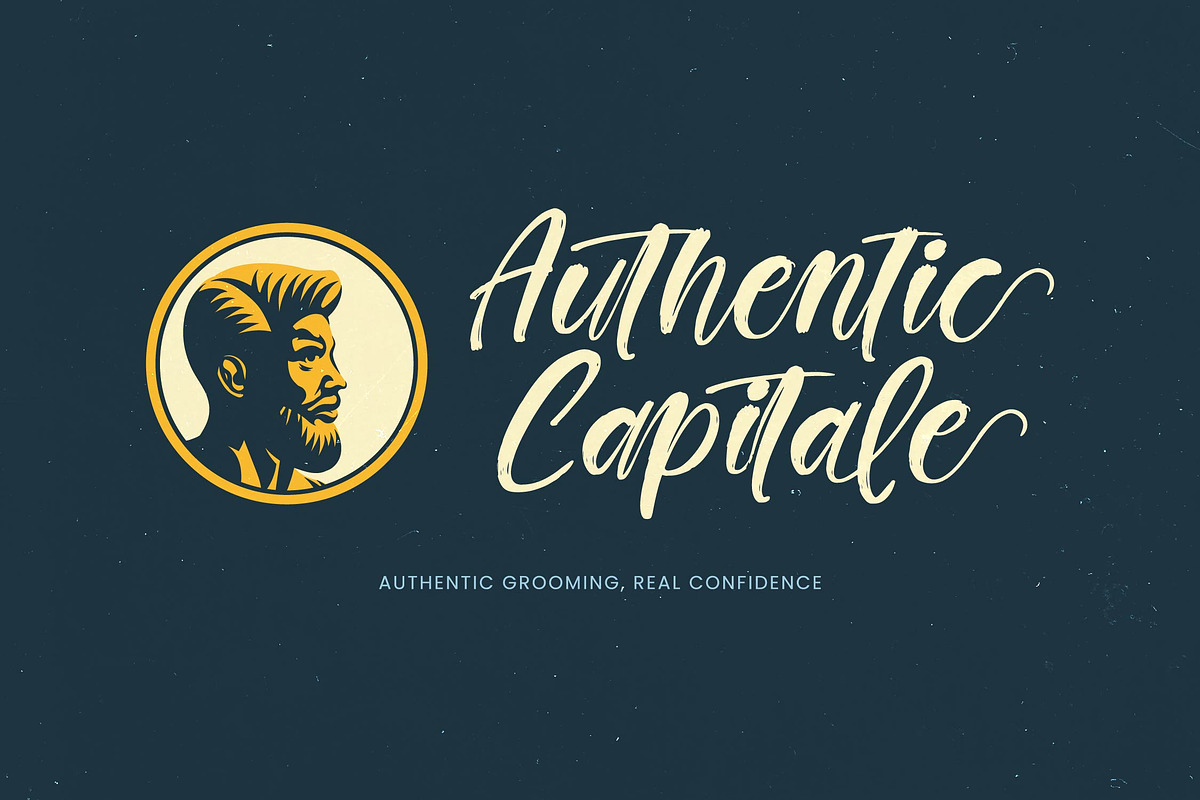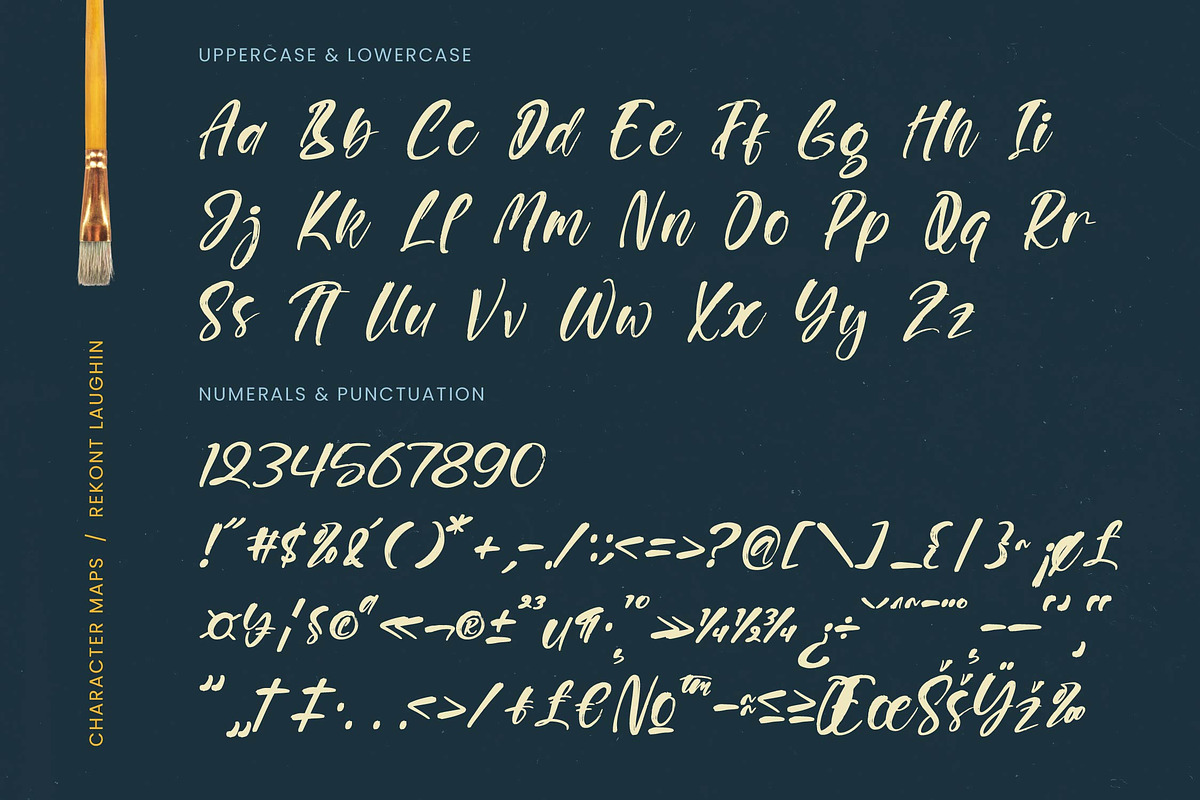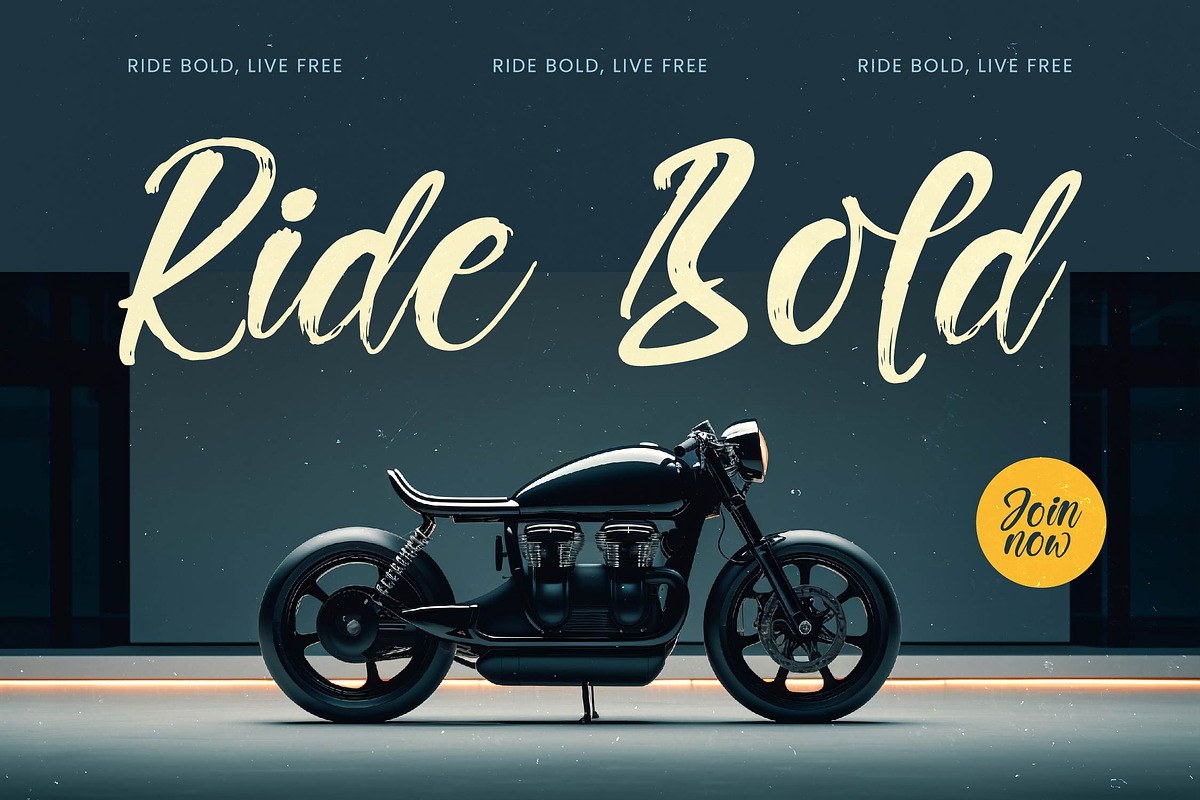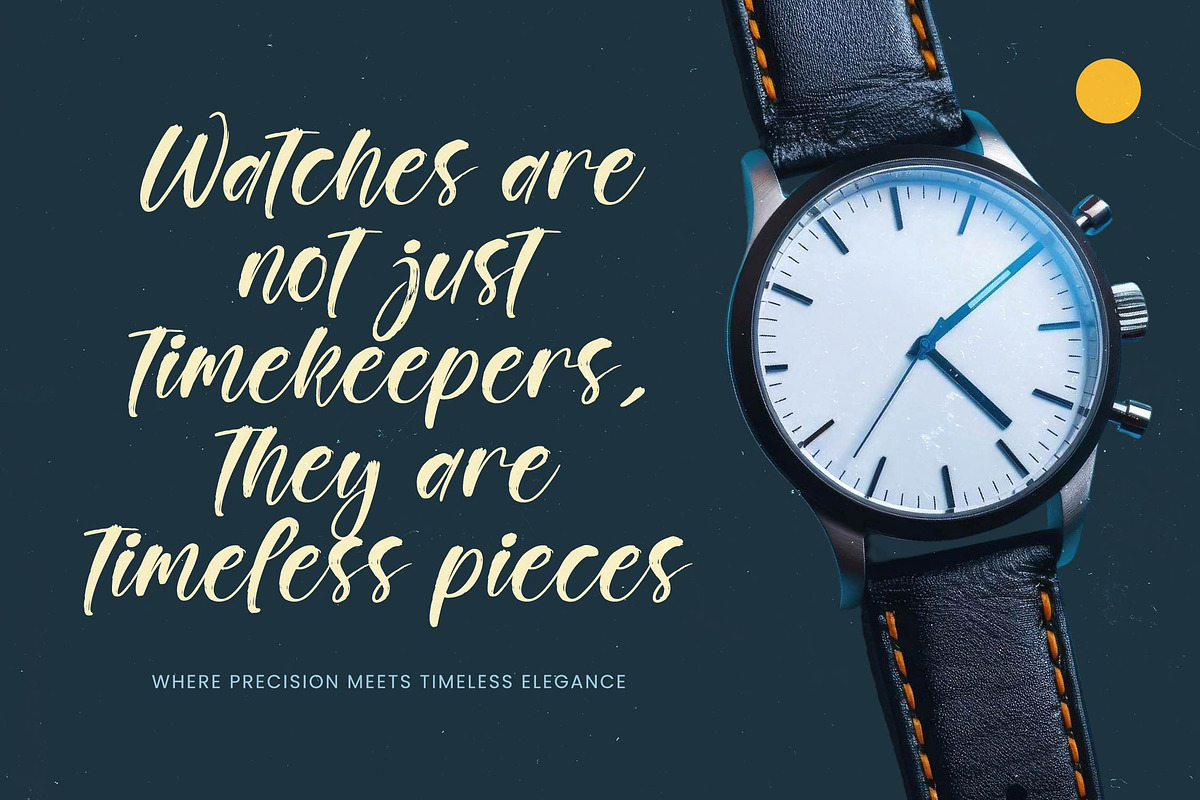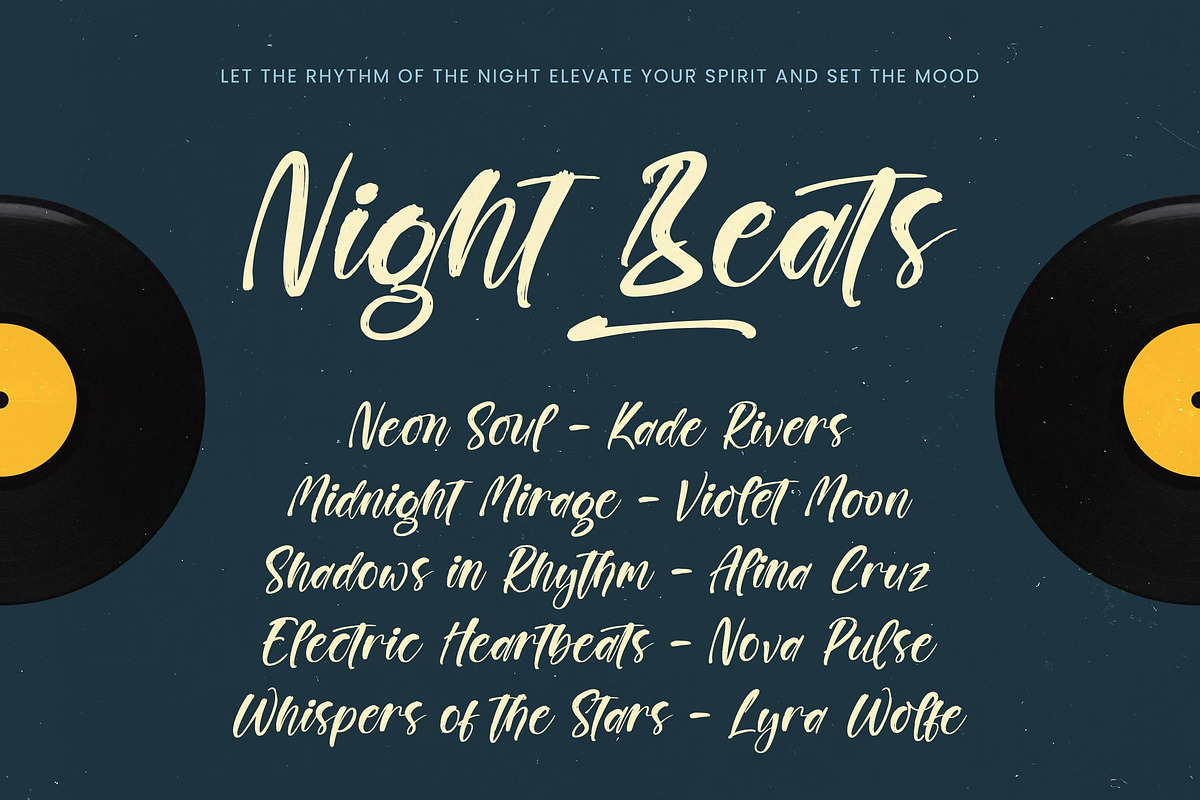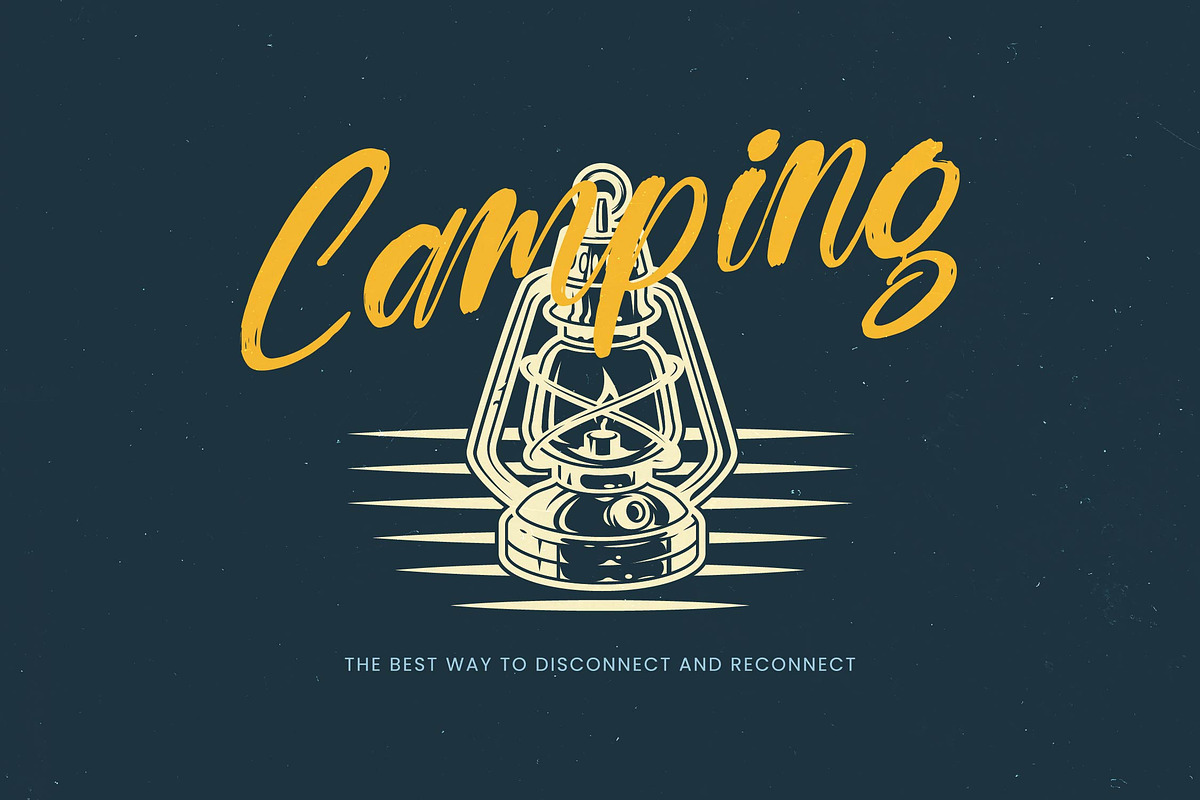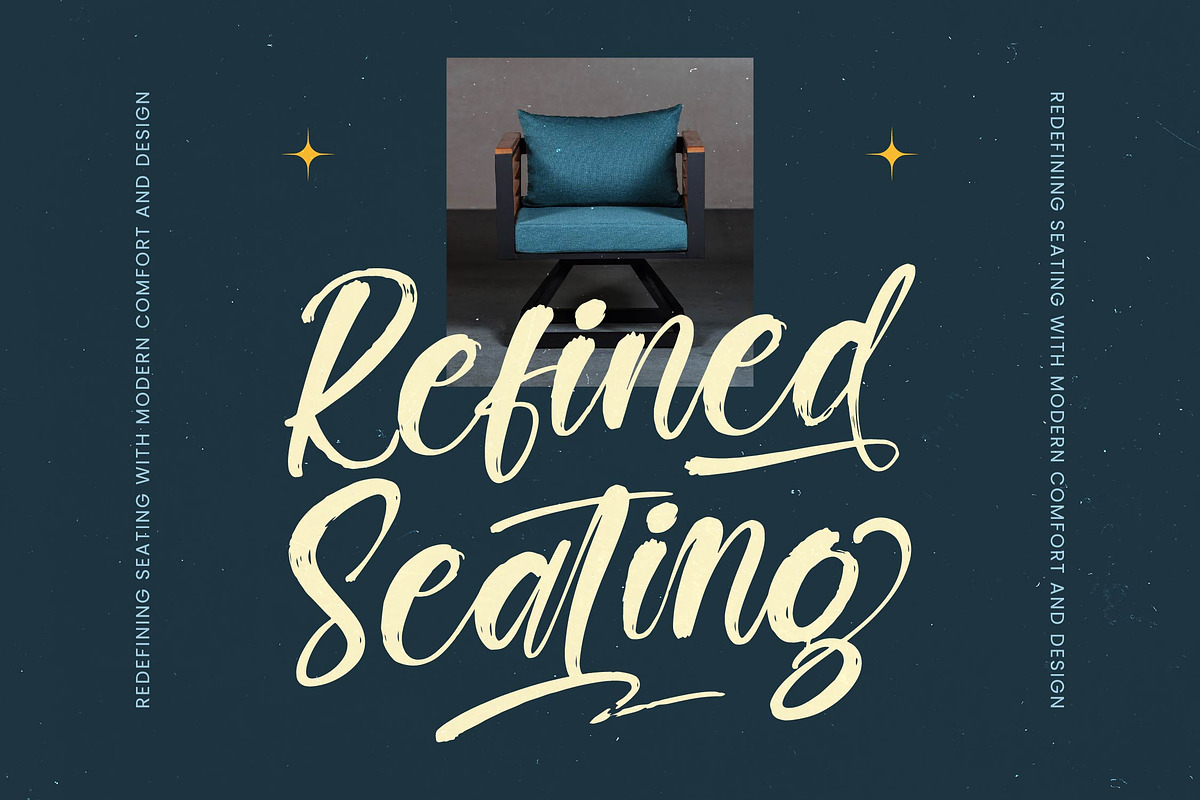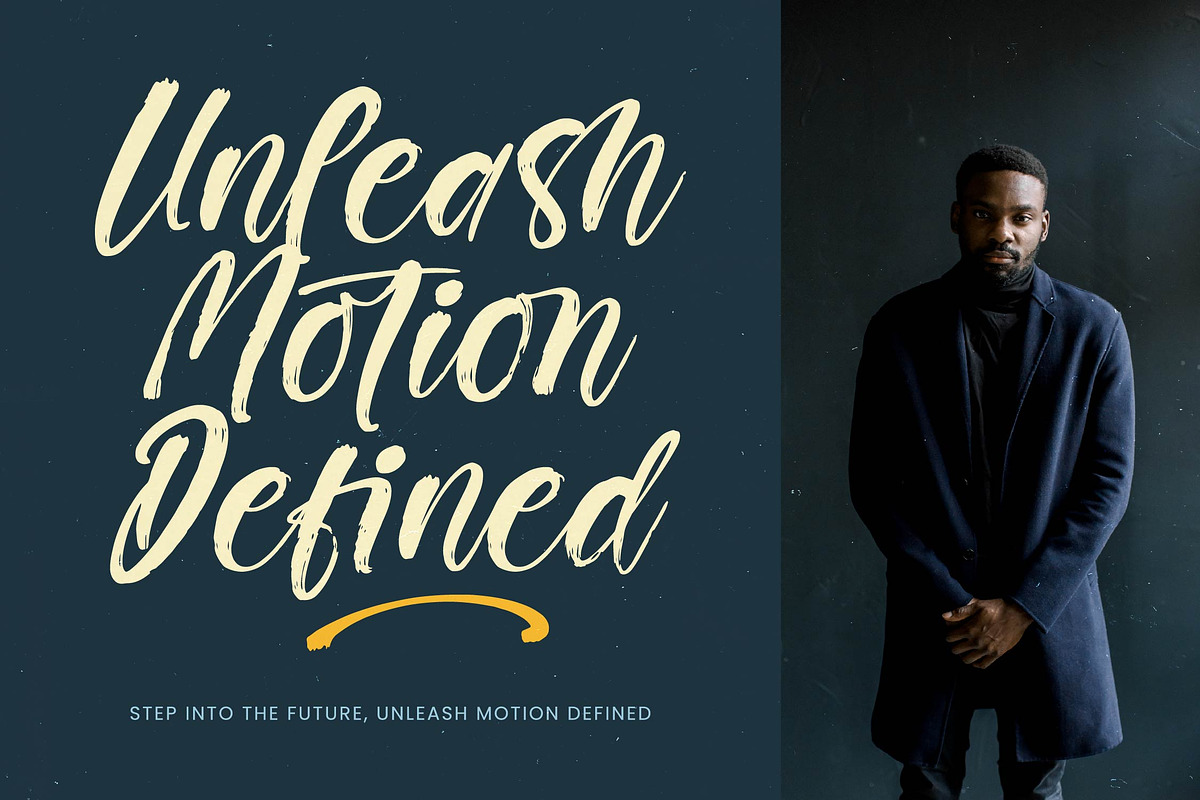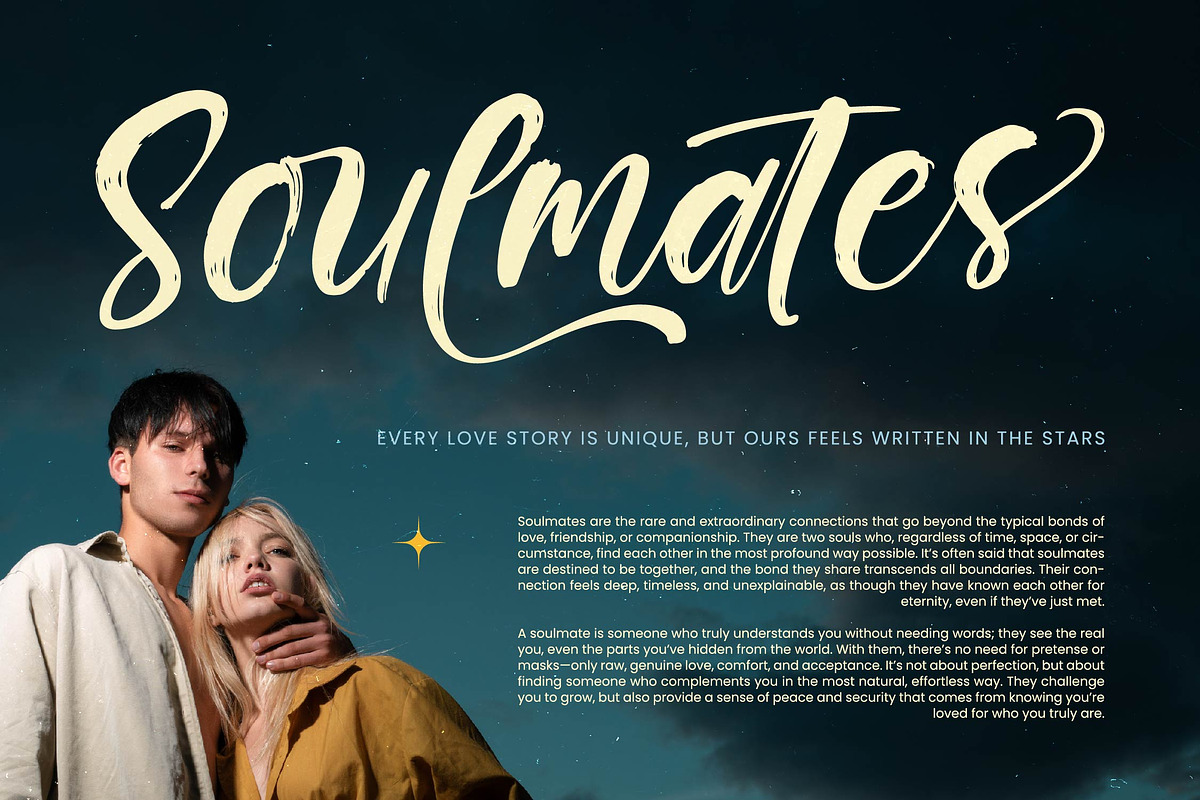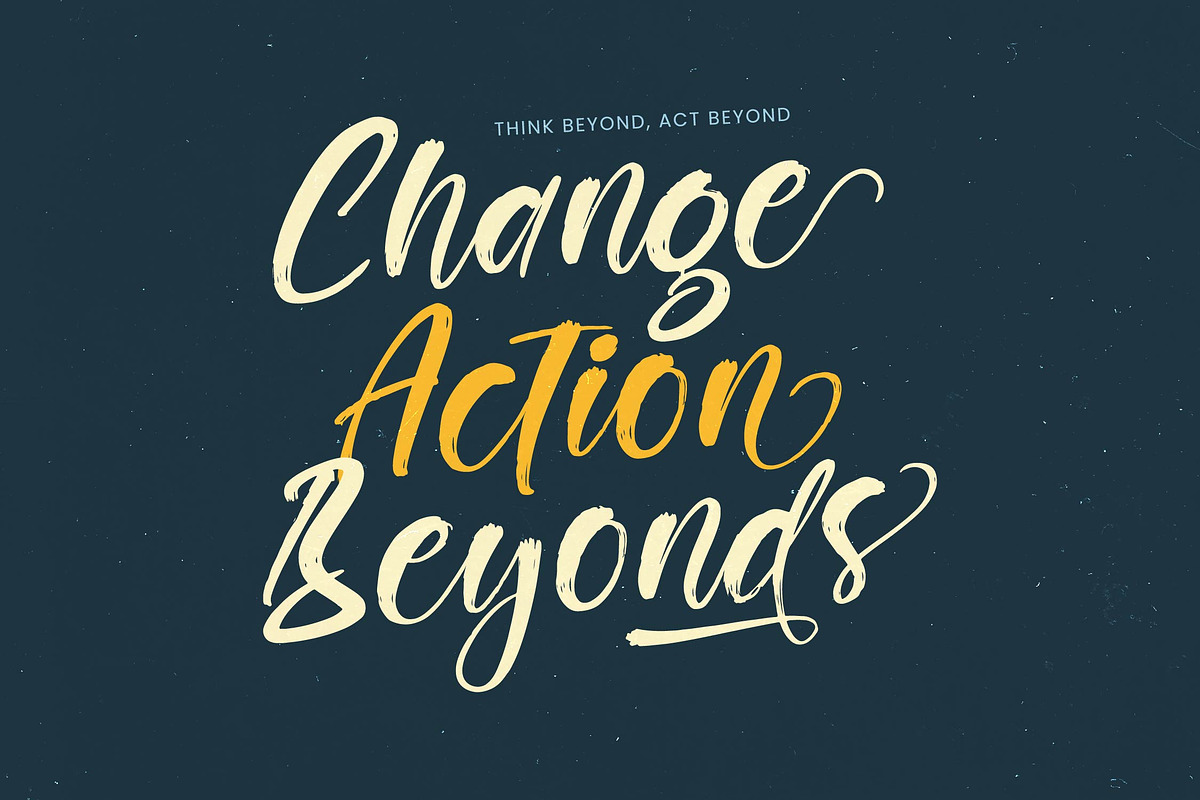
Rekont Laughin Bold Brush Font
Rekont Laughin - Bold Brush Font , from Stylishtype.Co , Suitable for any projects such as: logos, branding projects, homeware designs, product packaging, mugs, quotes, posters, shopping bags, t-shirts, book covers, name card, invitation cards, greeting cards, label, photography, watermark, special events, and all your other luxury and beautiful projects that need a Luxury Script taste.
- 74 Ligature 29 Alternates & 08 Swashes